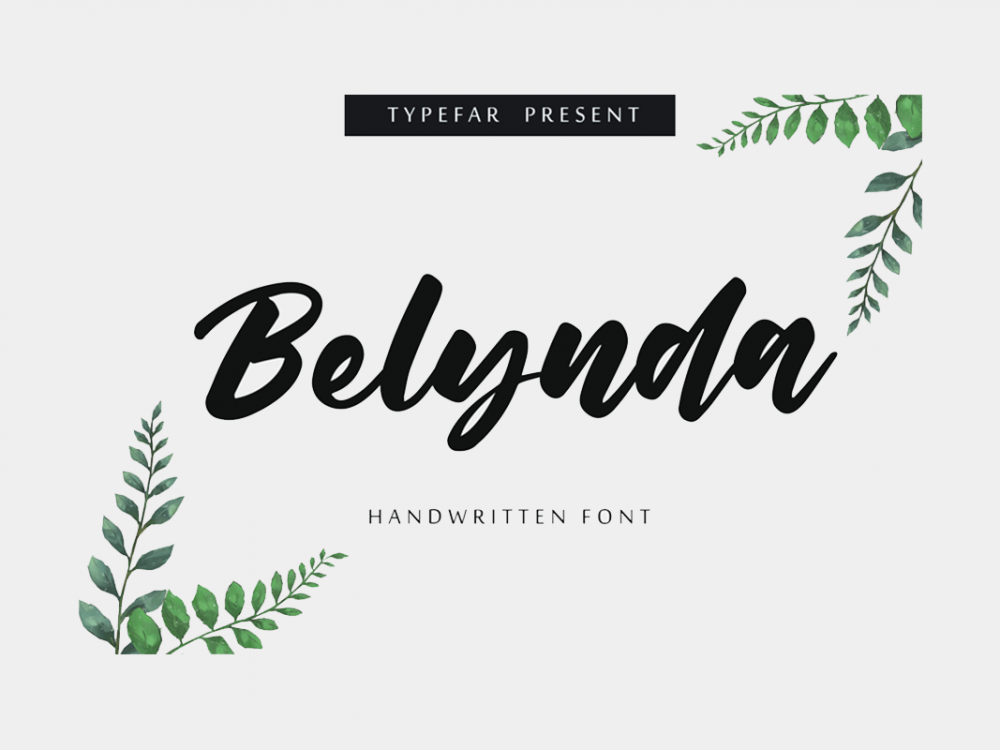
Belynda Script Free Font
Belynda Script Free Font is a modern, interesting typeface that mimics writing with a brush and has a bold style. This font is very suitable for creating various design projects that require a handwritten font. These can be posters, cards, invitations, flyers, prints, and much more. If you wish to access more features and use them for commercial work please buy the full version.